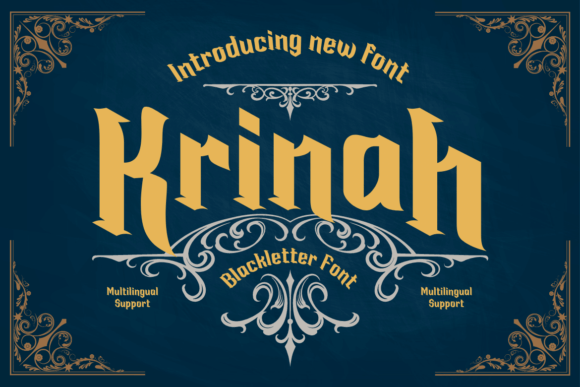
Attention, design enthusiasts and visionaries! Dive into the captivating world of Krinah Font, a masterpiece of blackletter artistry that will ignite your creativity and elevate your projects to new heights.
Crafted by the renowned Twinletter Type Foundry, Krinah Font is the ultimate expression of Gothic elegance. Its intricate glyphs and flowing lines evoke a sense of mystery and intrigue, making it perfect for any project that demands a touch of darkness and allure.
Whether you're a graphic designer seeking the perfect font for a bold logo or a filmmaker searching for a haunting aesthetic for your latest cinematic endeavor, Krinah Font is your answer. Its versatility extends across a myriad of applications, from captivating posters to stylish labels and badges.
Let Krinah Font unleash your inner artist and inspire you to create works of art that will leave a lasting impression. Dive into its enigmatic depths and discover why it's the font of choice for those who crave a touch of the extraordinary.